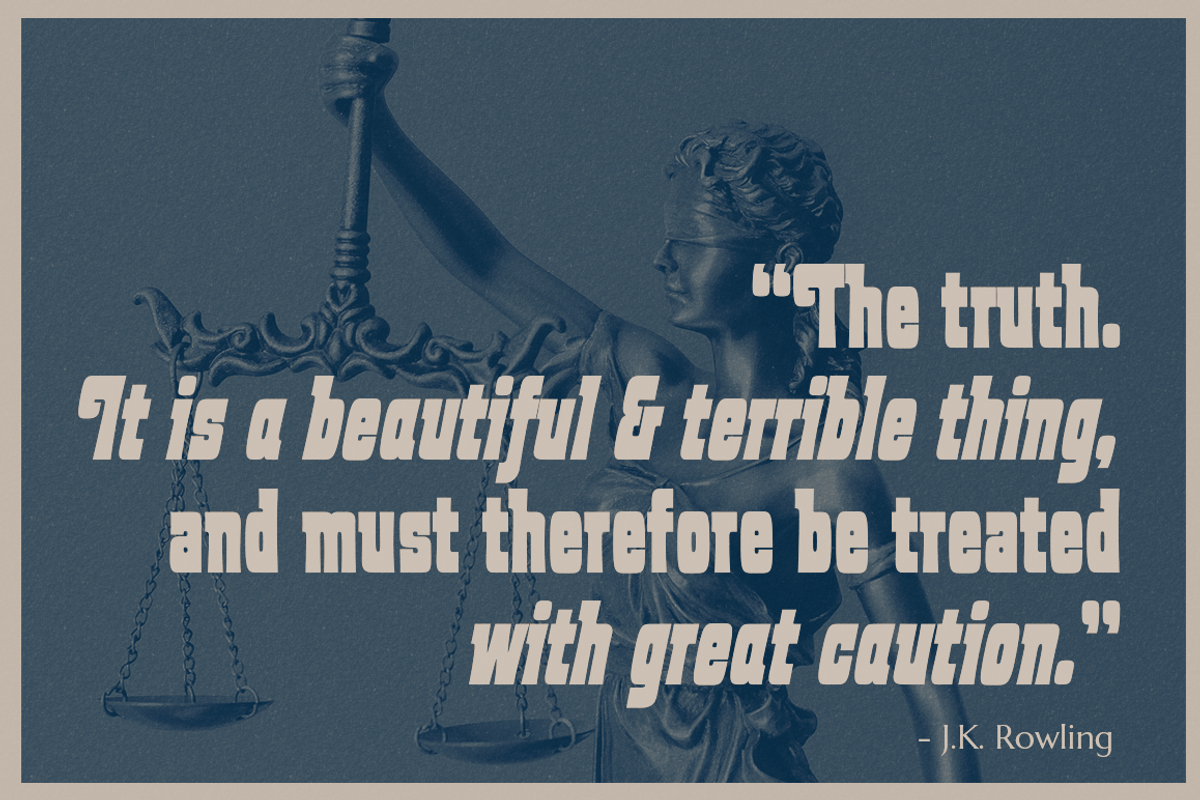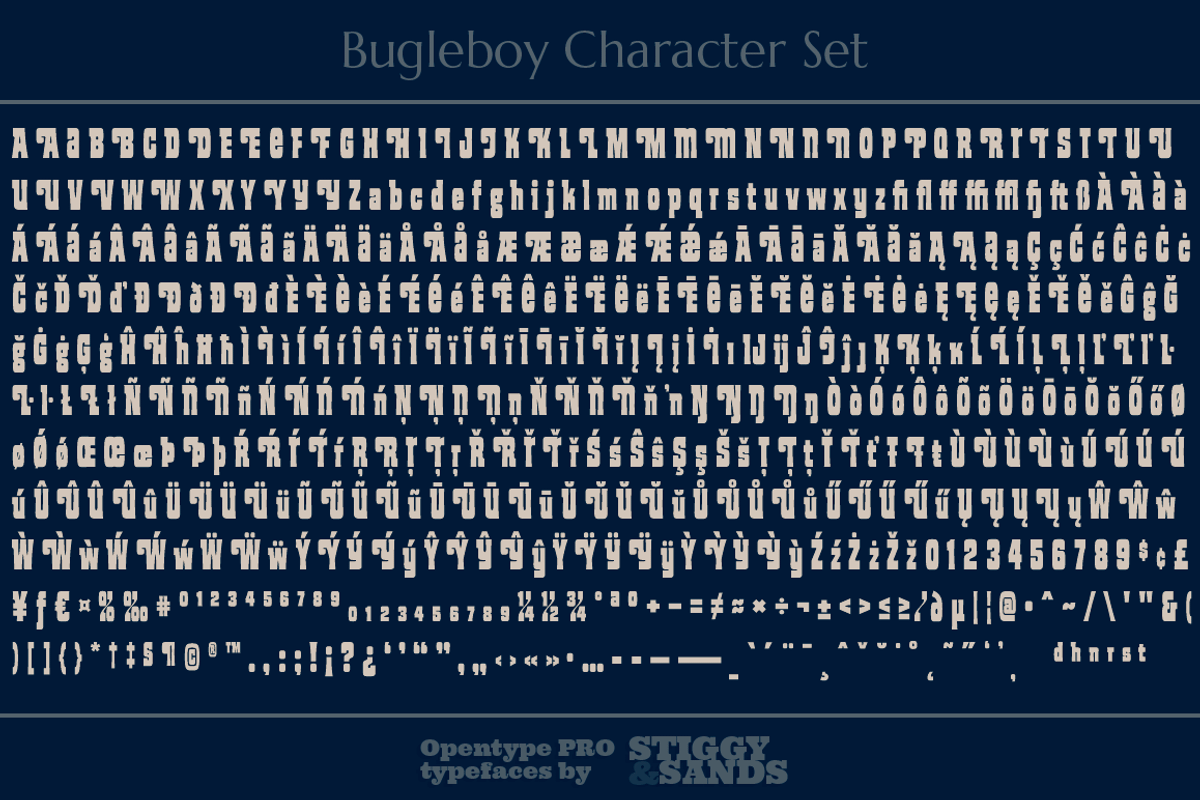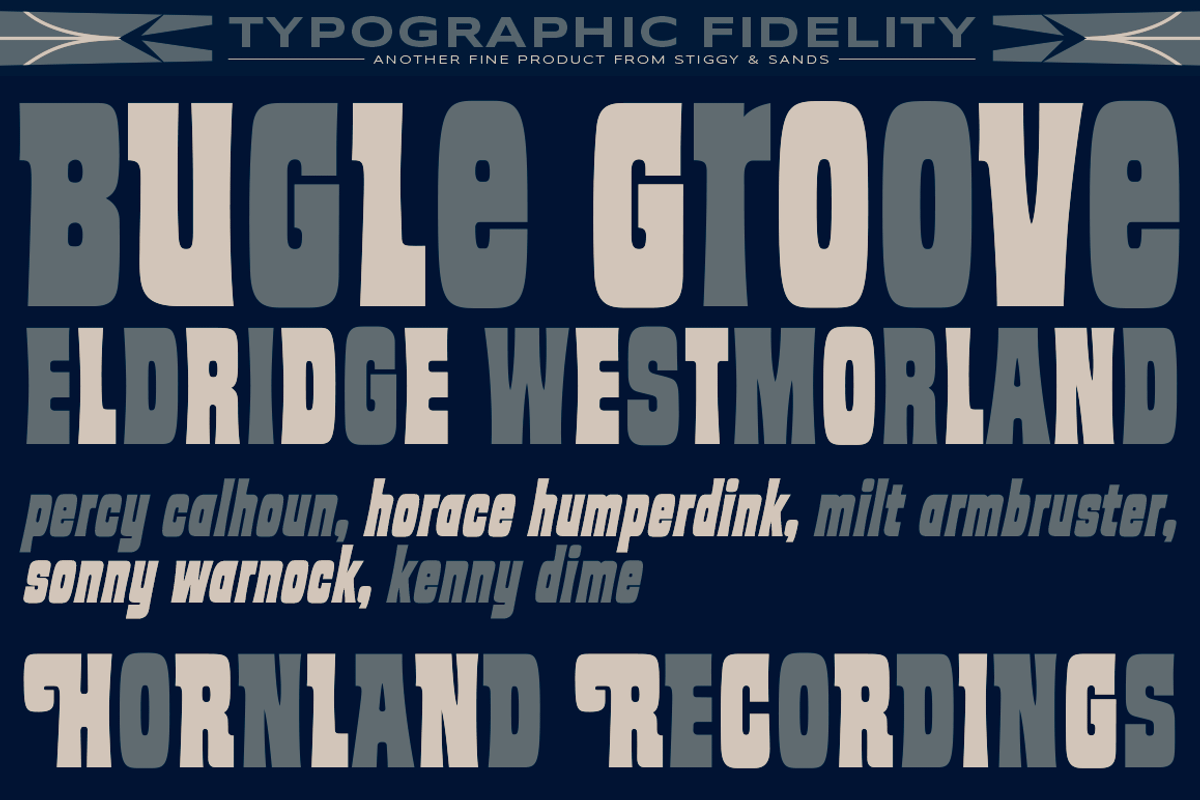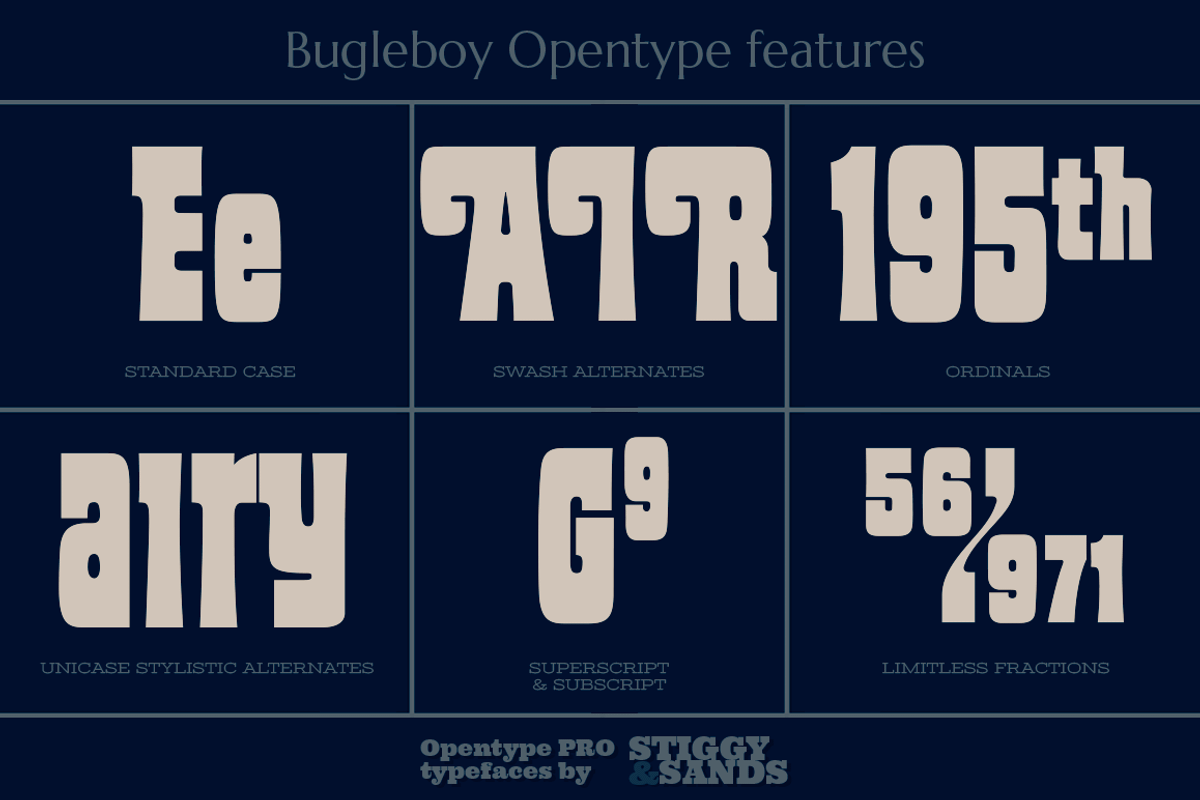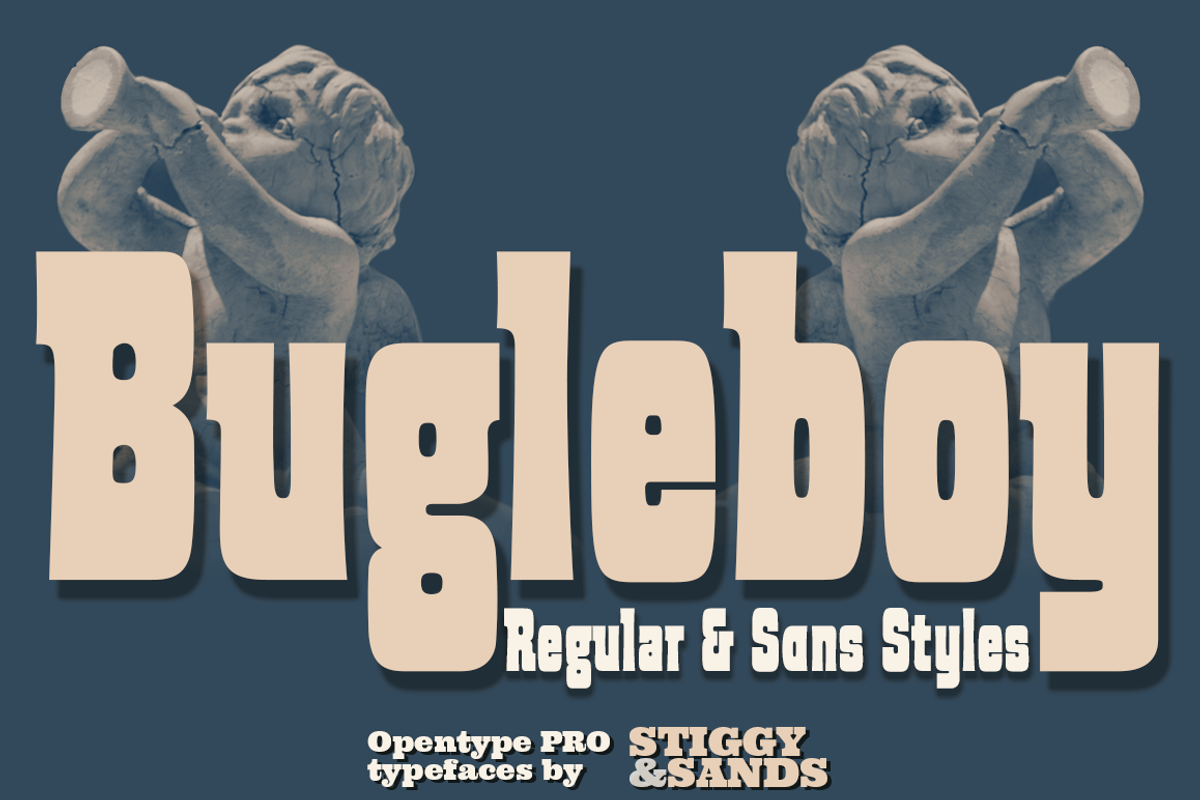
Bugleboy Family
A Slight Flair Uberweight Display
Bugleboy began as a digitization of a film typeface from LetterGraphics in the early 70's known as "Wood Grotesk". The original specimen included standard Capitals, Lowercase, Numerals and minimal Punctuation...truly a bare bones character set, previous only available on film and only in an upright stance.
This typestyle was begging to be revived and messed with, so we decided to add heavy swash alternates for the Capitals, and Stylistic Alternates to allow for a Unicase look. But while the slight serif styling on the top left of many forms wasn't obtrusive, we decided to chop them off and fashion up a "Sans" version of the font as well. While the Sans style doesn't have Swashes, it does still have Stylistic Alternate Unicase forms. Then to round it all out nicely, we thought the regular (serif) style could use an italic, and the sans style could use an oblique.
We've fleshed out the Bugleboy typefaces to include a full standard character set, an extended international set, and the variety of alternate character styles described above.
Opentype features include:
- Standard fi and fl ligatures
- Stylistic Alternates Letterforms: Creating a Unicase vibe when typing ALL-CAPS.
- Swash Alternates: for Capitals in the Regular (not Sans) styles
- Full set of Inferiors and Superiors for limitless fractions.
Approx. 564 Character Glyph Set (Regular), approx. 447 in Sans styles: Bugleboy comes with a glyphset that includes standard & punctuation, international language support, and additional opentype features.